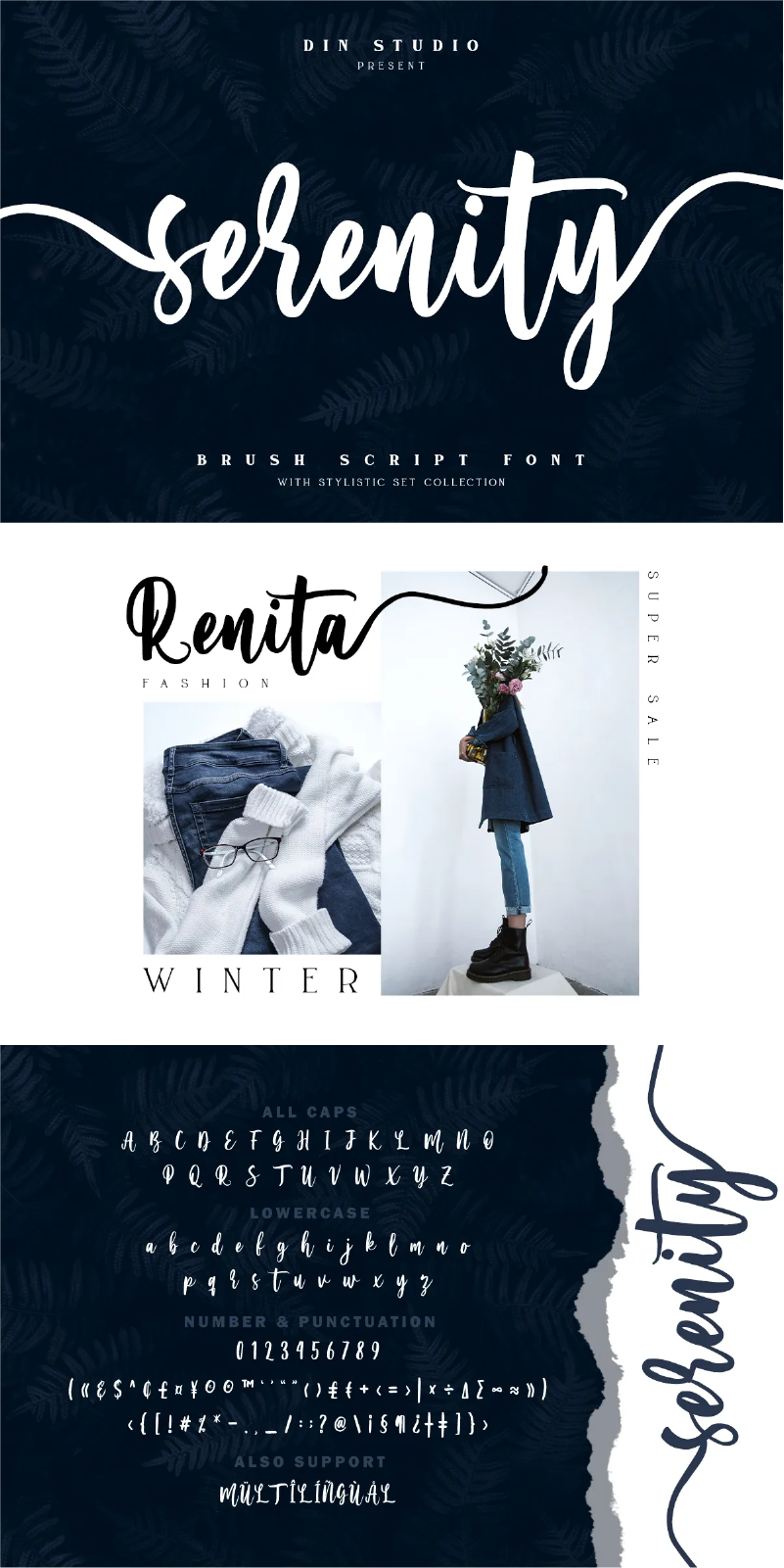
Serenity Font
About Serenity
Serenity is a graceful script font. The letters in Serenity are meticulously designed to resemble the fluidity of cursive handwriting. Each stroke flows seamlessly into the next, creating a sense of rhythm and movement that is both captivating and soothing to the eye.
What sets Serenity apart is its subtle brush detail, which adds an extra layer of depth and texture to the font. These delicate brush accents add a touch of warmth and character, giving the font a handcrafted feel that is both timeless and inviting. In addition, enjoy the features here.
Serenity fits in headlines, logos, posters, flyers, branding materials, print media, editorial layouts, and many more designs. Find out more ways to use this font by taking a look at the font preview.